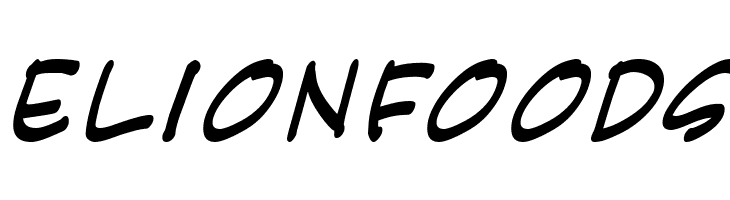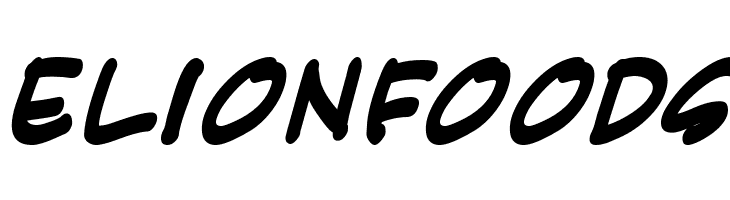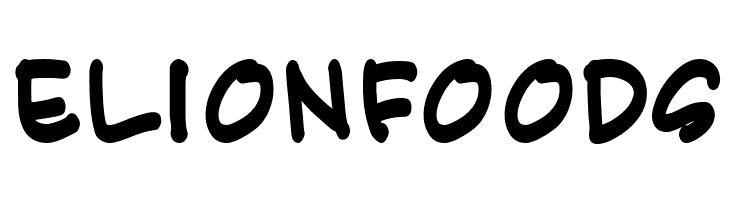
• Karatula Bold
• Karatula BoldItalic
A bold, italic, handwritten font with a dynamic and playful style.
• Karatula Italic
A dynamic, italicized handwritten font with a fluid and elegant style.
• Karatula Normal
A playful, handwritten-style font with bold, rounded strokes.